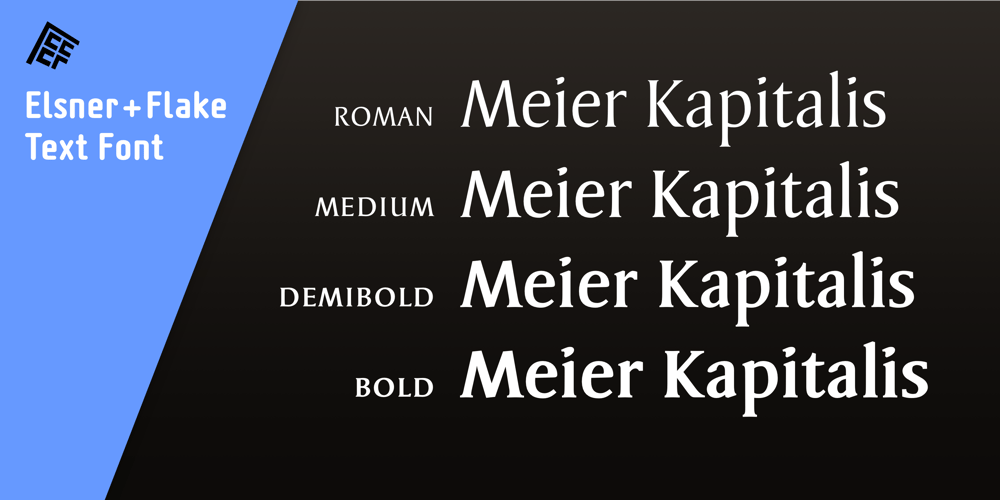
Meier Kapitalis Font Family was designed by Hans Eduard Meier, Veronika Elsner and published by Elsner+Flake. Meier Kapitalis contains 8 styles and family package options. As a late work the “Meier Kapitalis” forms an arch within the typographic creations of the Swiss type designer Hans Meier who died in 2014. The first sketches of this typeface can be found in the teaching manual “The Development of Script and Type” (German: “Die Schriftentwicklung”; French “Le développement des caractères”) which was published in 1994, however, under the title “Roman Lapidary, 1st Century”. The booklet was first published by the Syntax Press, Cham, Switzerland and contains an introduction by Max Caflisch in which he writes: „The present work, „The Development of Script and Type“ is a concise, authoritative textbook, concentrating on the essentials in a wide survey from ancient Greek inscriptions to the printer’s typefaces of the present day. His (Meier’s) 72 varieties of letterforms enable the student or general reader to understand the history of script and type, while more than 60 of his own calligraphic specimens provide excellent models for all who practice this art.“ Unfortunately, the “Meier Kapitalis” is one of the few typeface families in this publication which has been digitized. It was to be the last type project fully realized by Meier. In cooperation with Elsner+Flake, the typeface family was developed and expanded and now contains the four cuts: Roman, Medium, Demi Bold and Bold with either a complement of characters for 78 Latin-based languages (EL=EuropaPlus) or in West-Layout.